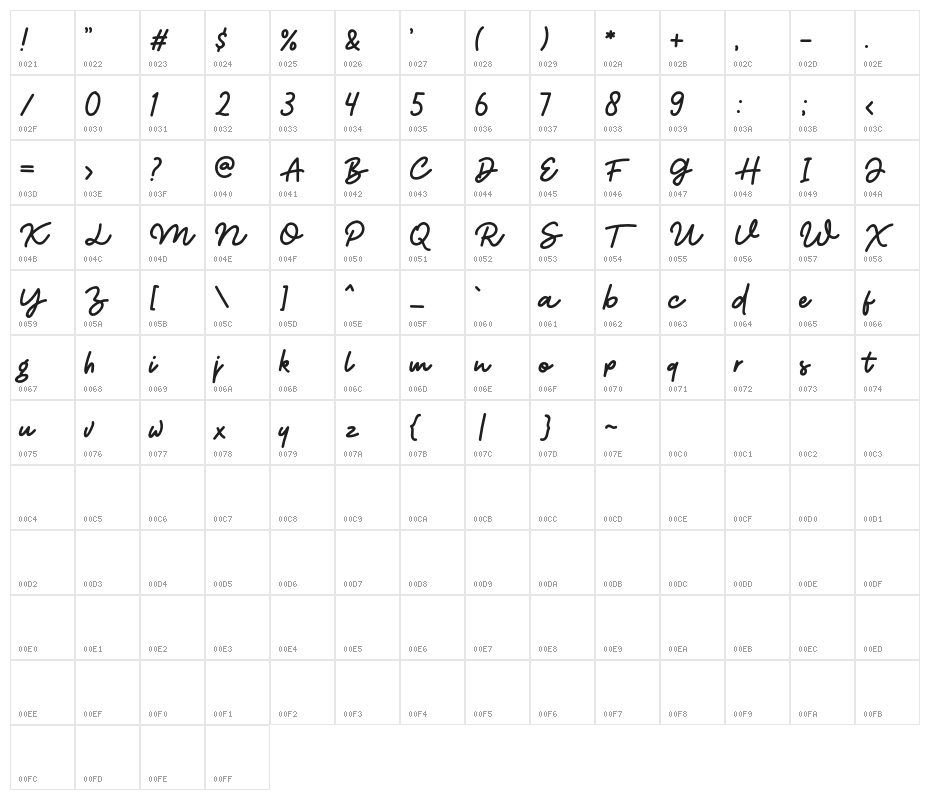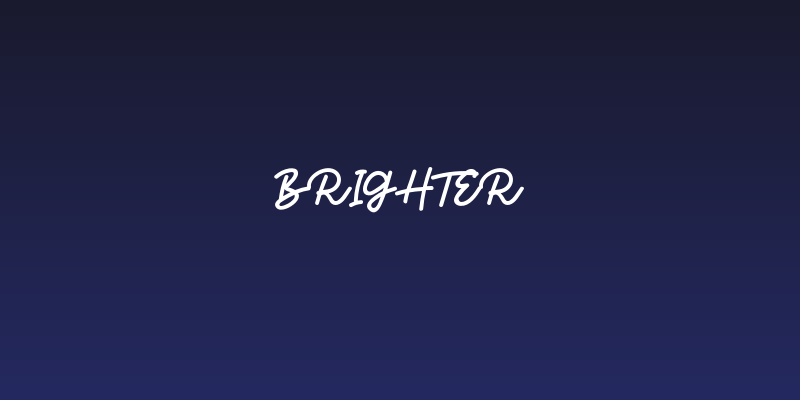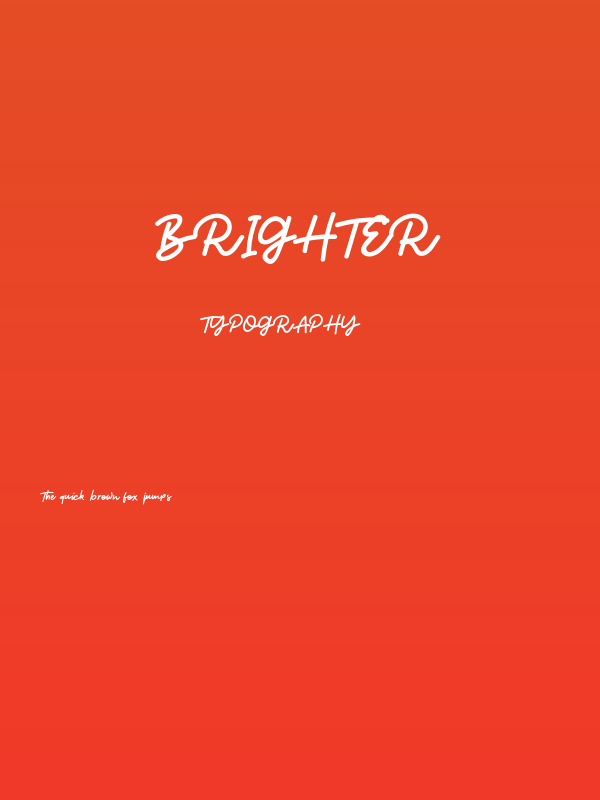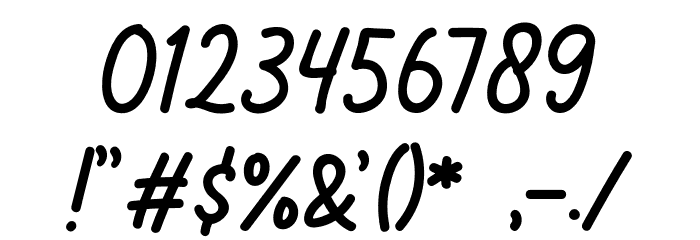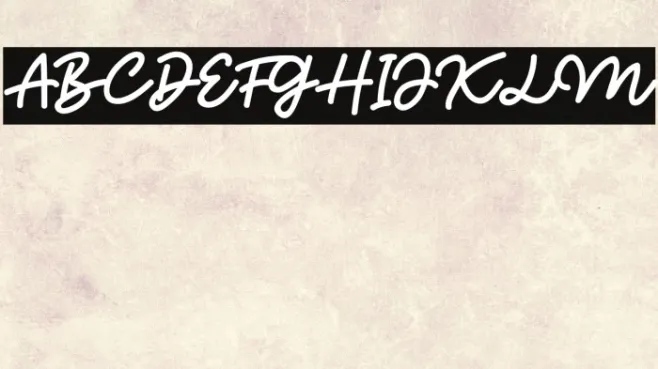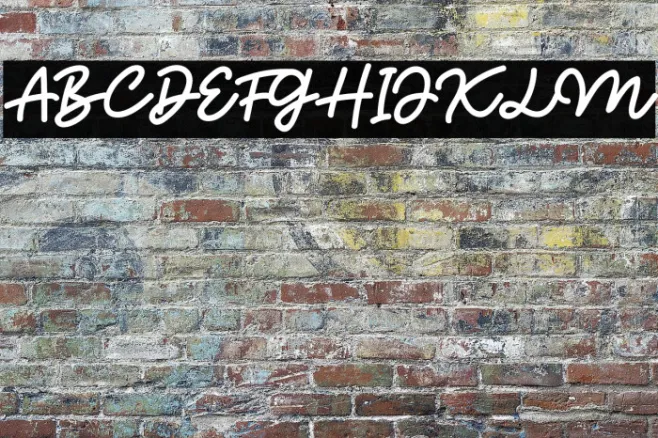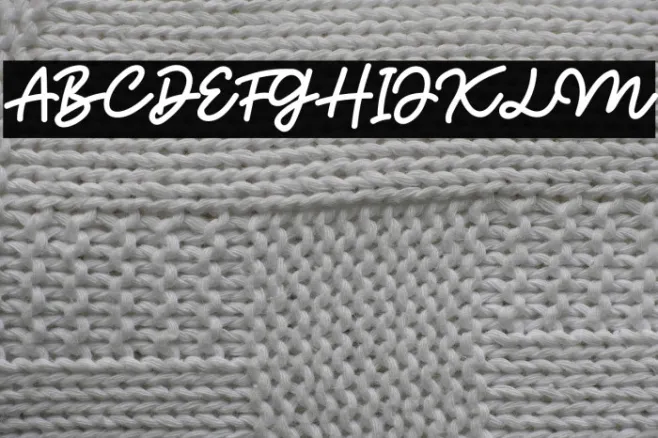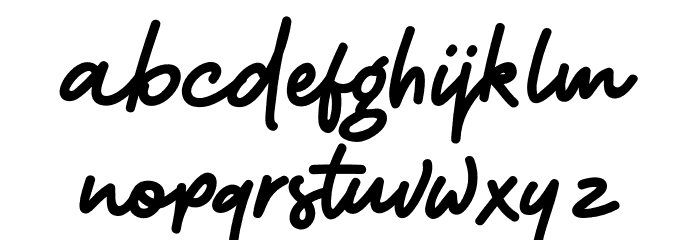
Brighter Font
Brighter Description
This font features a lively and energetic handwritten style, characterized by its fluid and connected strokes. The uppercase letters maintain a consistent height, while the lowercase letters exhibit a playful bounce, adding a dynamic rhythm to the text. The numerals are bold and clear, ensuring readability. Special characters are well-integrated, maintaining the overall aesthetic. The font's organic flow and casual elegance make it suitable for a variety of creative applications.